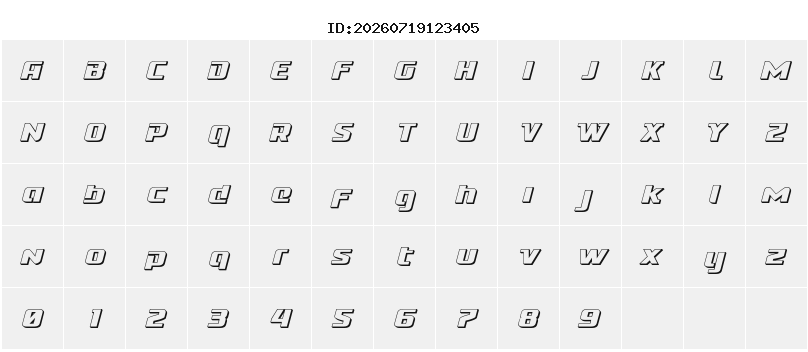
Cobalt Alien 3D Italic Preview
• Font Name: Cobalt Alien 3D Italic
• Font ID: Cobalt Alien Italic: 2015
• Full Font Name: Cobalt Alien 3D Italic
• Version: Version 1.0; 2015
• PostScript Name: CobaltAlien3DItalic
About Cobalt Alien 3D Italic.ttf
Cobalt Alien 3D Italic.ttf is a modern, elegant sans-serif font designed for ultimate readability and visual harmony. Perfect for branding, headlines, web design, and print materials.